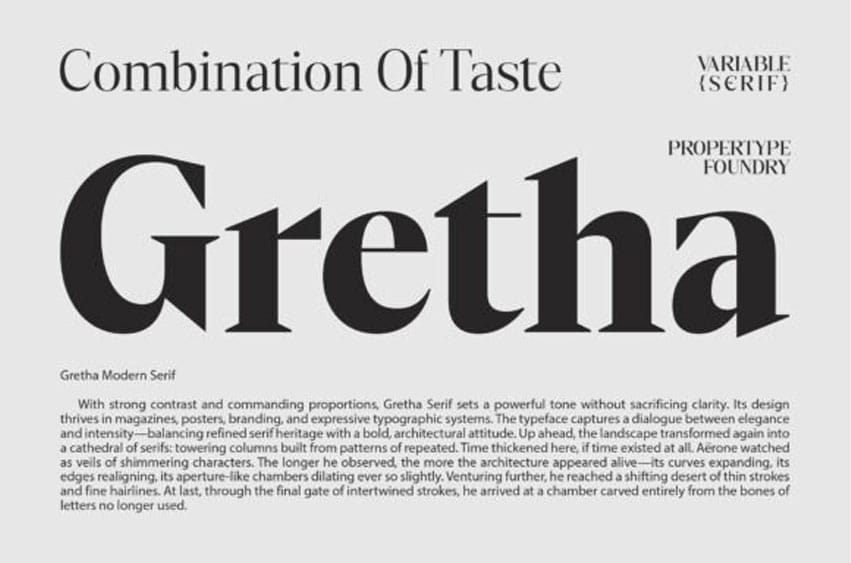
Gretha Font
Gretha Font is a commanding modern serif that masterfully balances architectural strength with refined heritage.
Featuring strong contrast and high-impact proportions, the Gretha typeface is designed to thrive in magazines, posters, and expressive typographic systems. This Gretha font captures a dialogue between elegance and intensity, making it suitable for both high-end corporate identities and avant-garde fashion layouts. Pair the Gretha typeface with its variable weights to create a cohesive and powerful visual hierarchy.
Whether used for a minimalist website or a bold print advertisement, the Gretha font sets a professional and authoritative tone that demands attention.
It includes 54 fonts, both upright and italic, ranging from light to black. It also includes one variable font. OpenType features allow for the implementation of typography such as ligatures and support for multiple languages.
A good choice for branding, magazines, posters, advertisements, print, packaging, headlines, web design, and more.